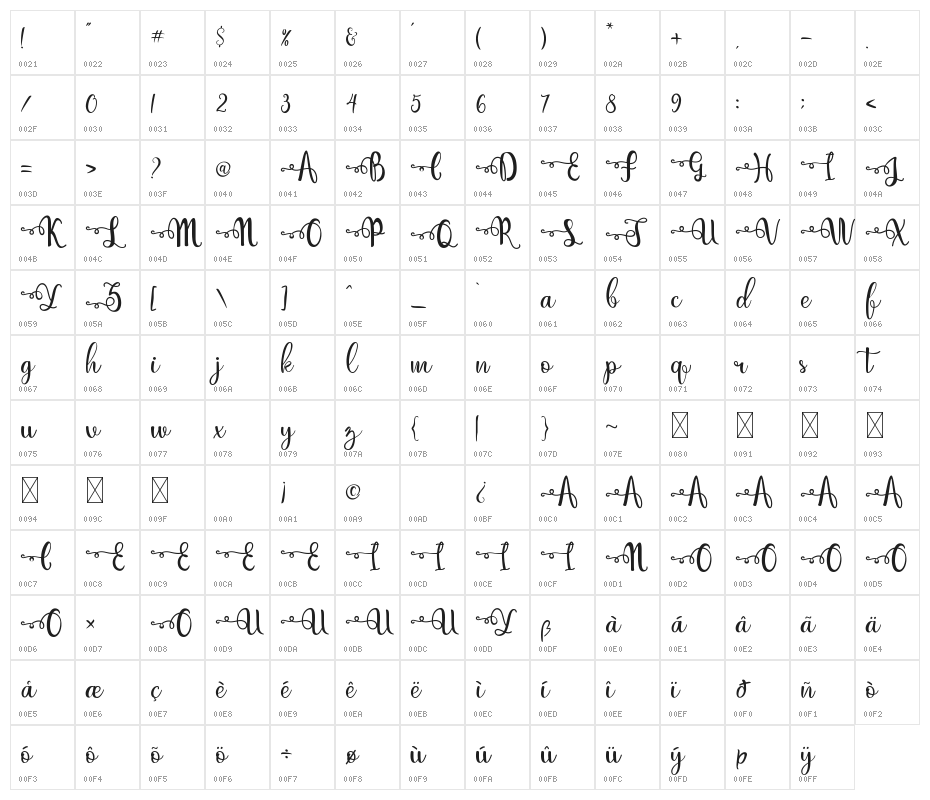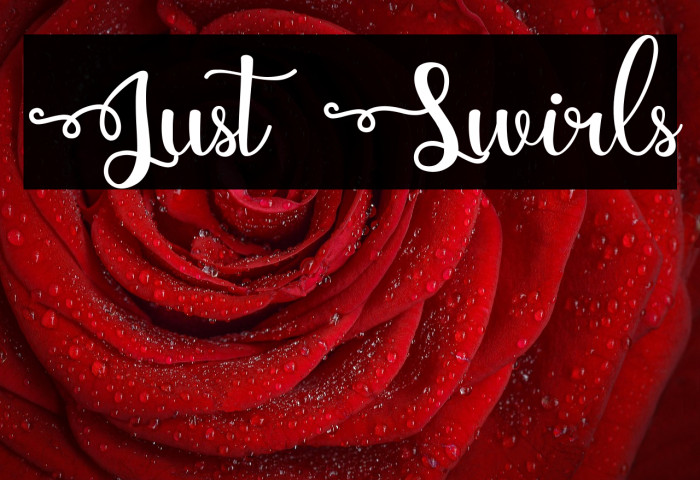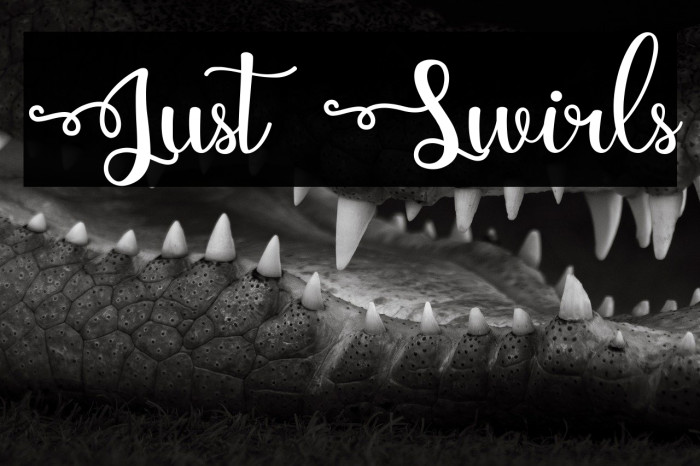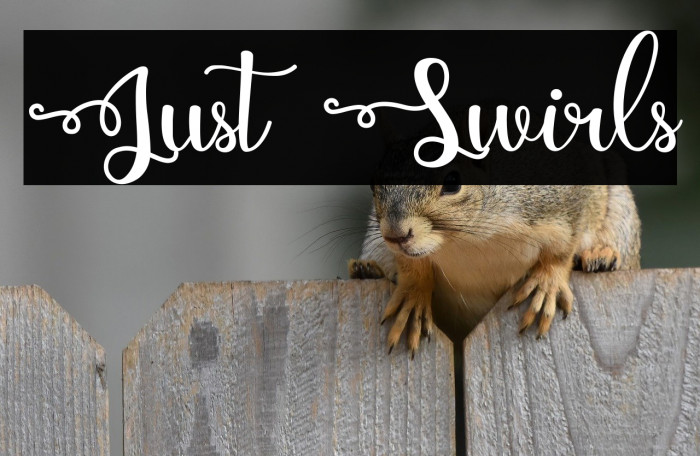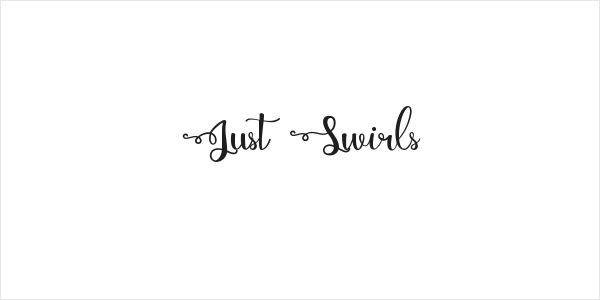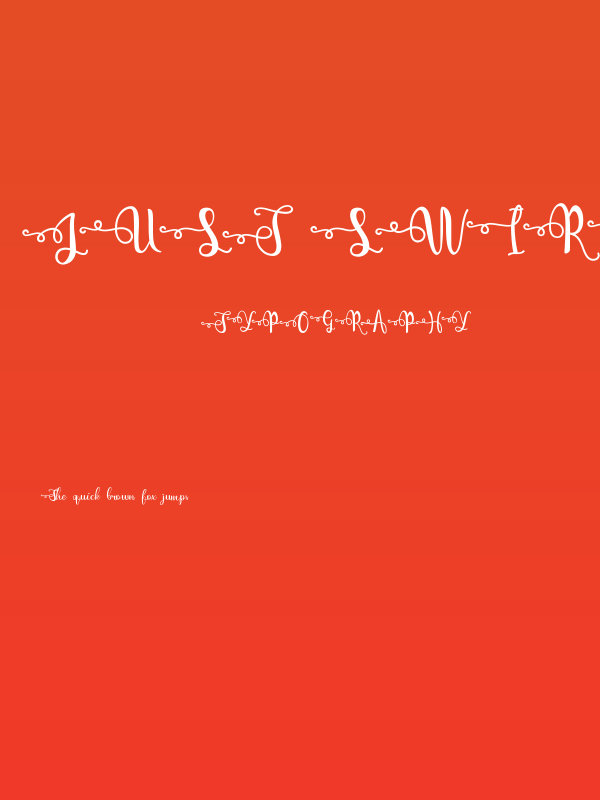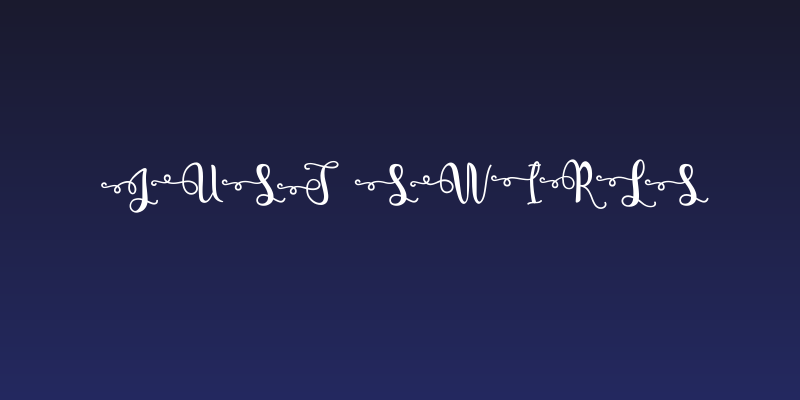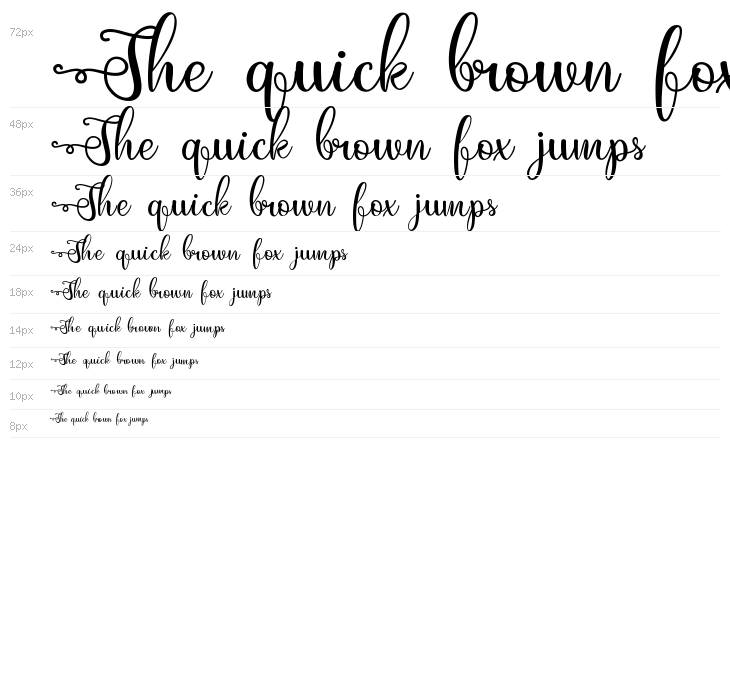
Just Swirls Font
Just Swirls Description
This font features an elegant and decorative script style, characterized by its intricate swirls and loops that extend from each letter. The uppercase letters are particularly ornate, with embellishments that create a sense of whimsy and sophistication. The lowercase letters maintain a flowing, cursive style that complements the uppercase, offering a harmonious blend of formality and playfulness. The numerals and special characters are designed to match the overall aesthetic, ensuring consistency throughout. This font is ideal for projects that require a touch of elegance and creativity, such as invitations, branding, and decorative signage.
| Use Case | Logos, Invitations, Decorative Text |
| Proposed Projects | Ideal for wedding invitations, branding, decorative signage, and creative projects. |